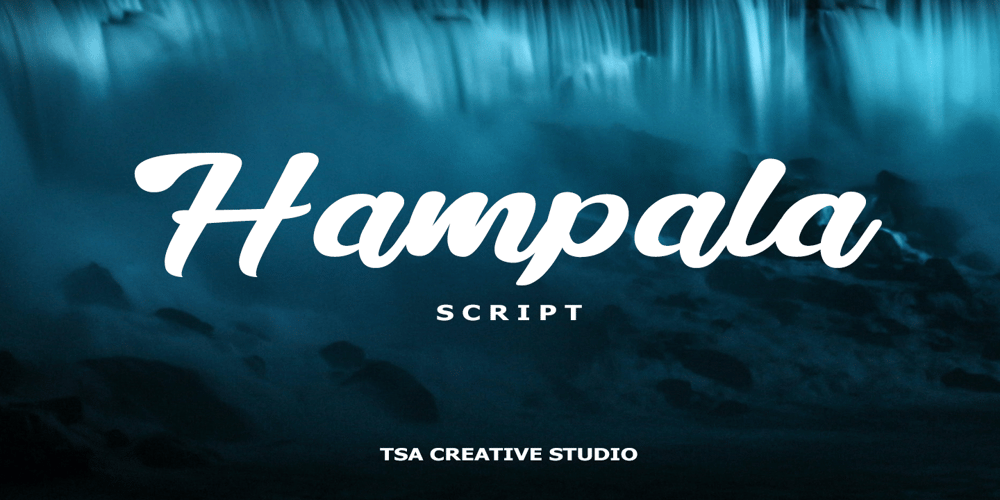
Hampala Font Family was designed by Estiko Priyanto and published by TSA Creative. Hampala contains 1 styles and family package options. Hampala is a handwritten script font with a simple and classy style, such as branding, watermark on photography, signature, logo design, quotes, album cover, business card, and many other design project. From business cards to photo watermarks, Hampala is here to elevate your work.Hampala comes with uppercase letters, lowercase, numbers, punctuation, ligature and multi lingual supportIf you have any queries, questions or issues please don’t hesitate to contact us direct. Thank you very muchTiko Creative